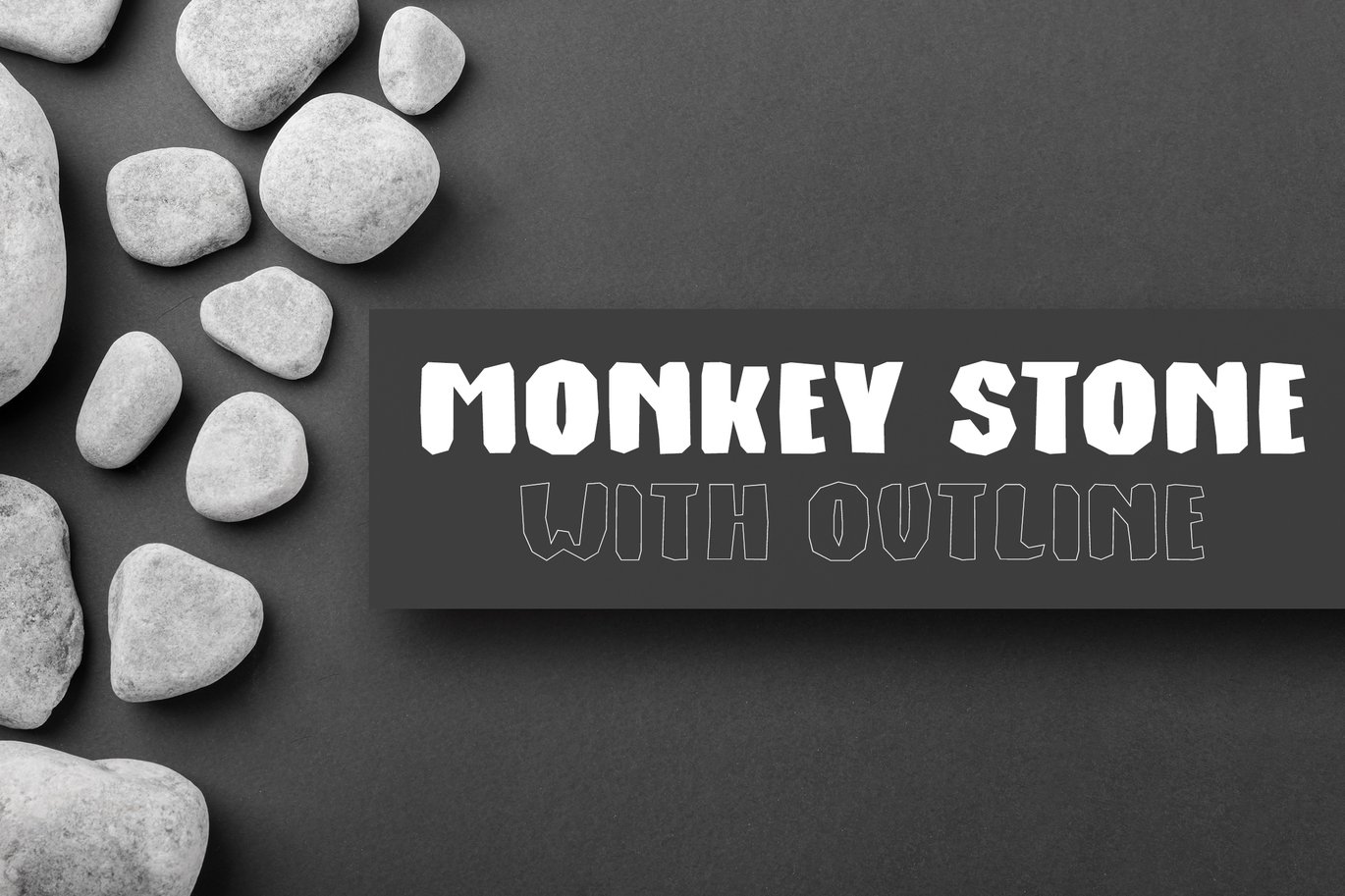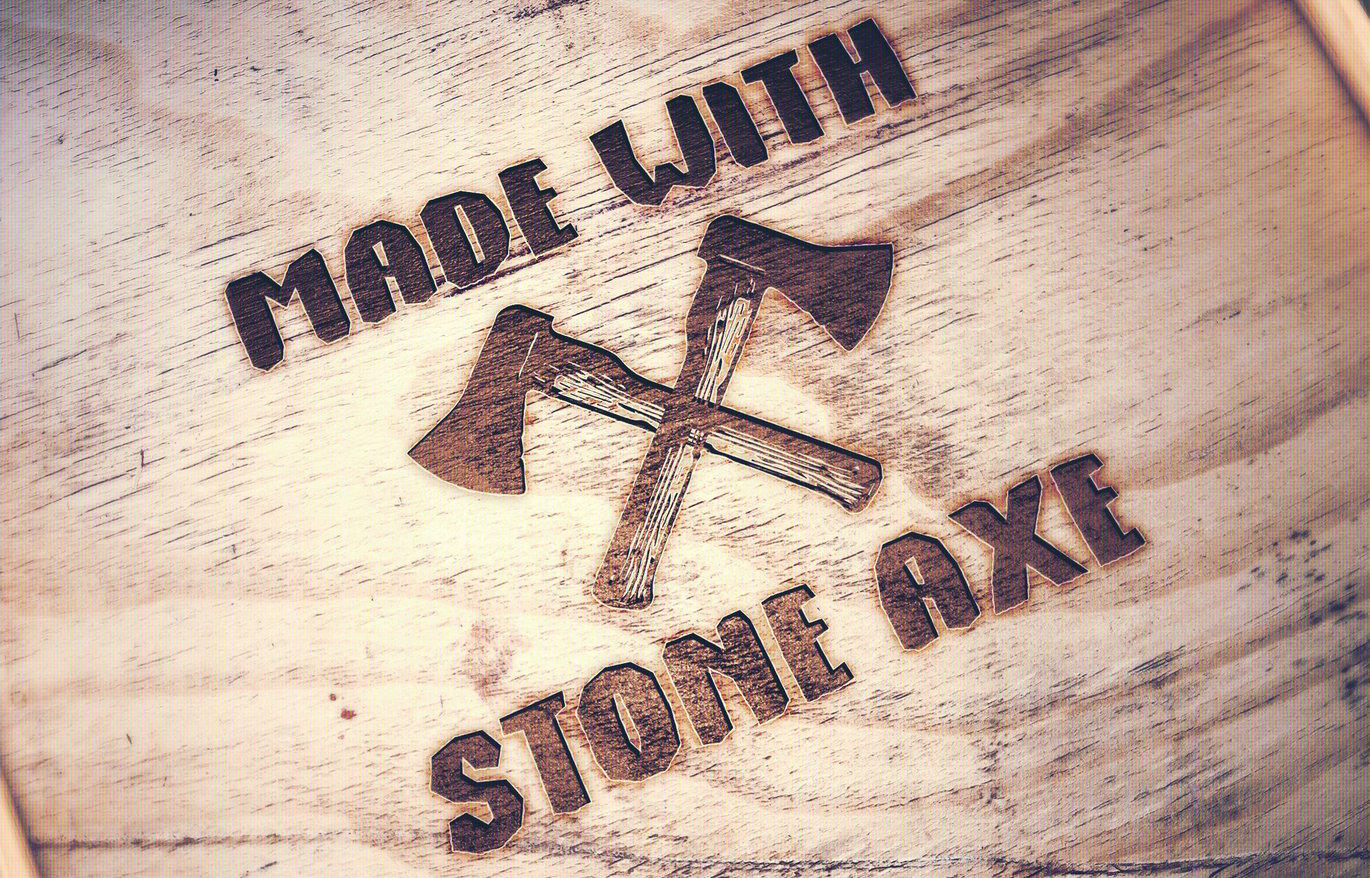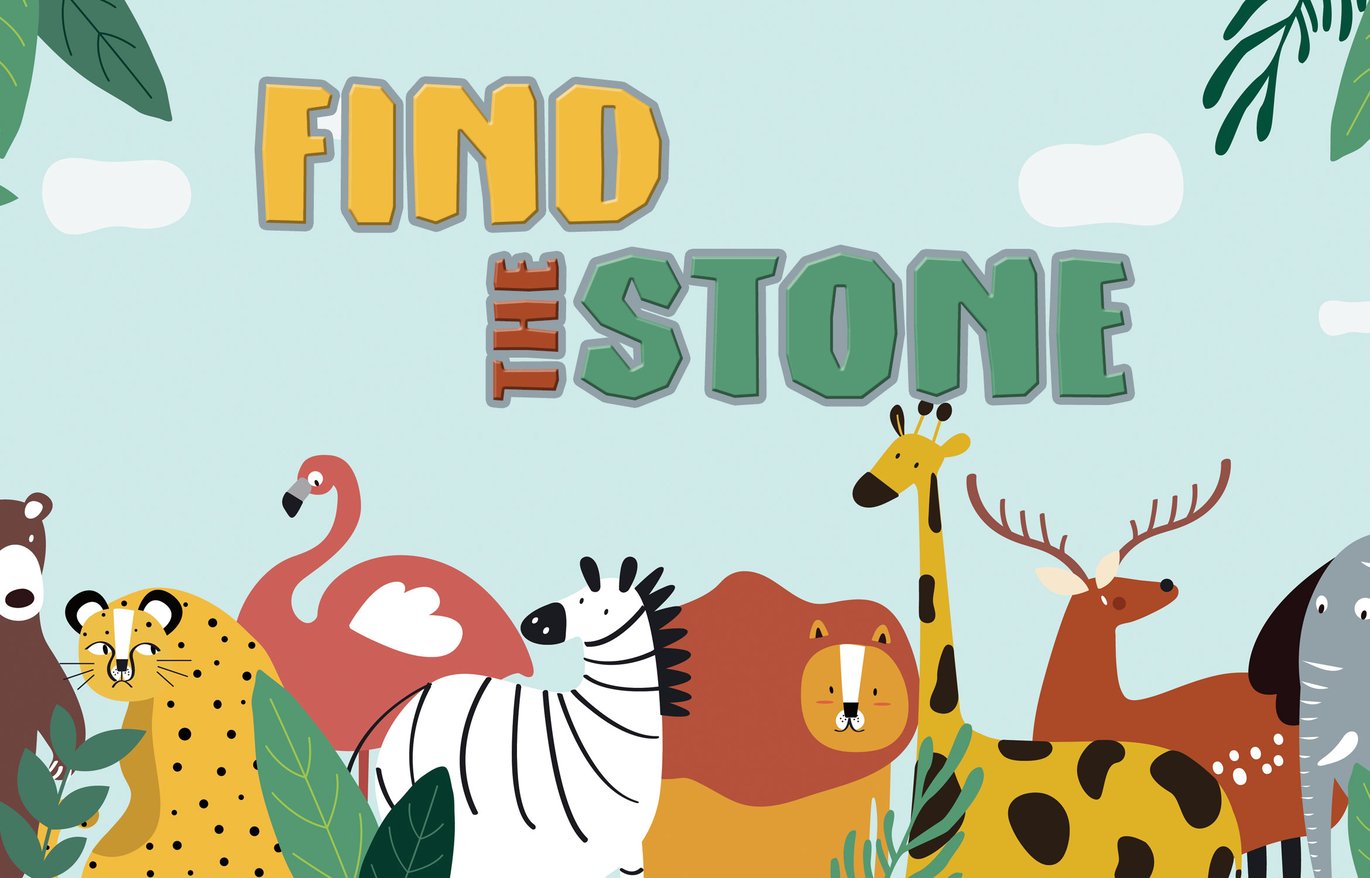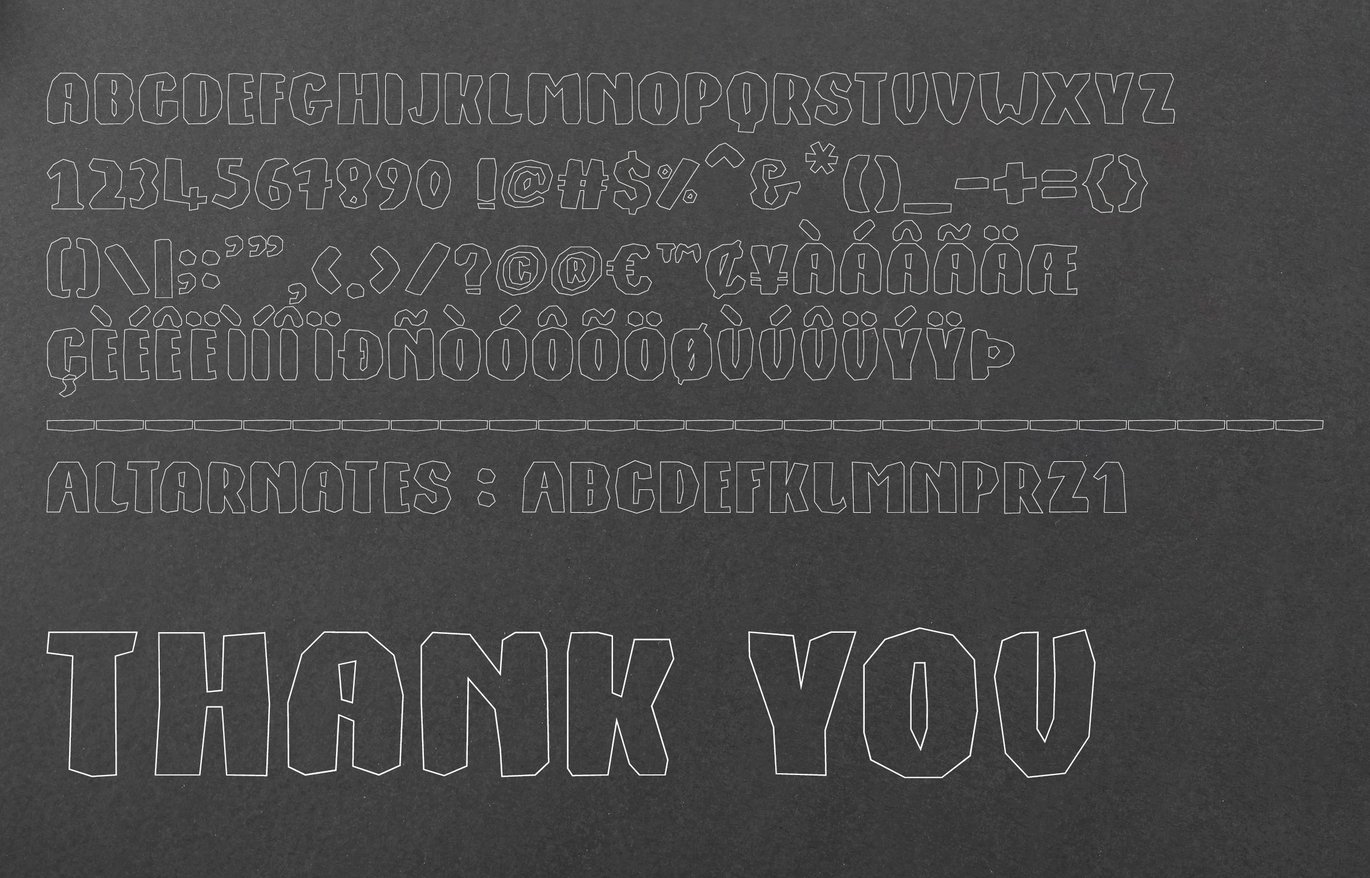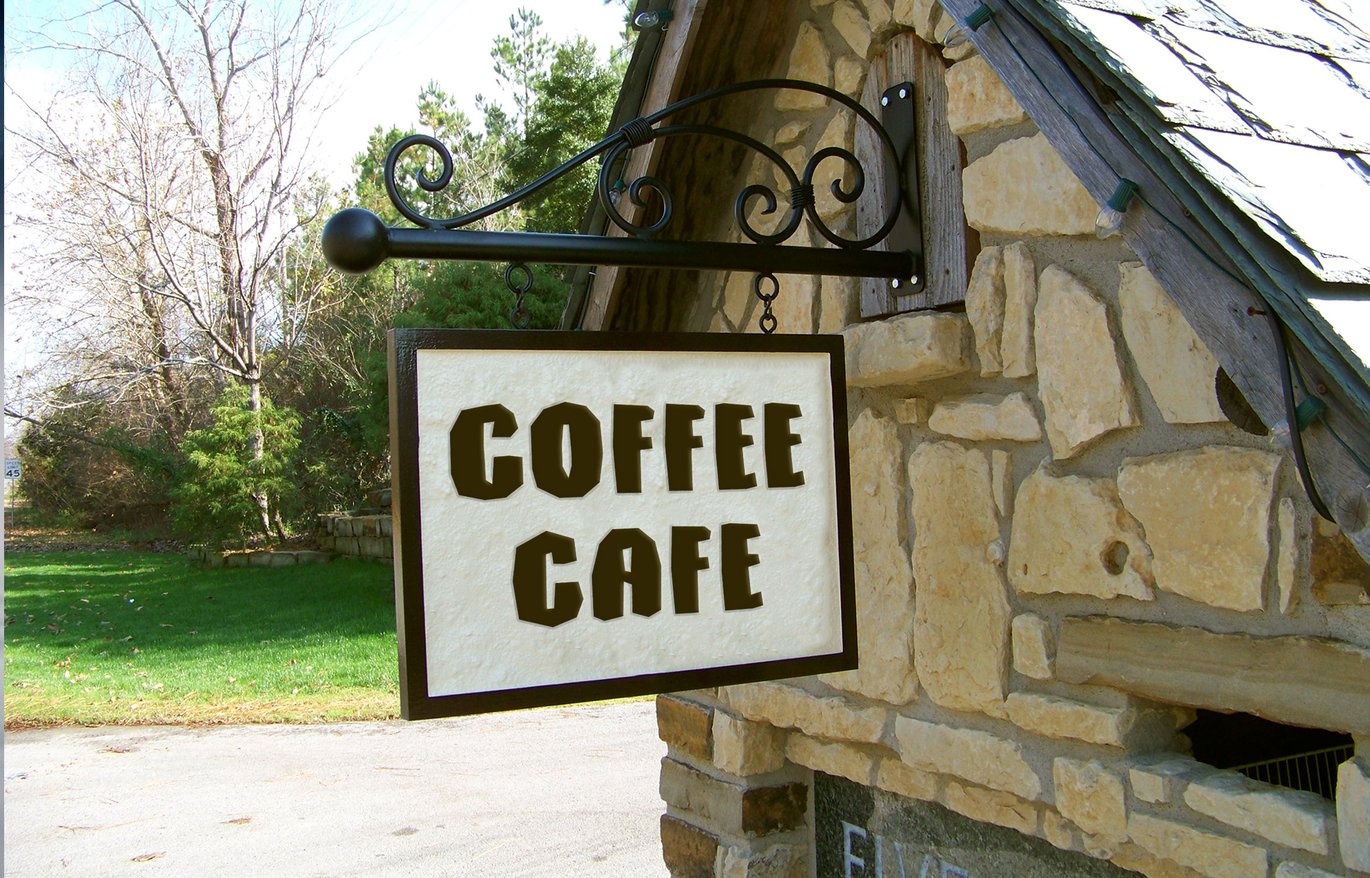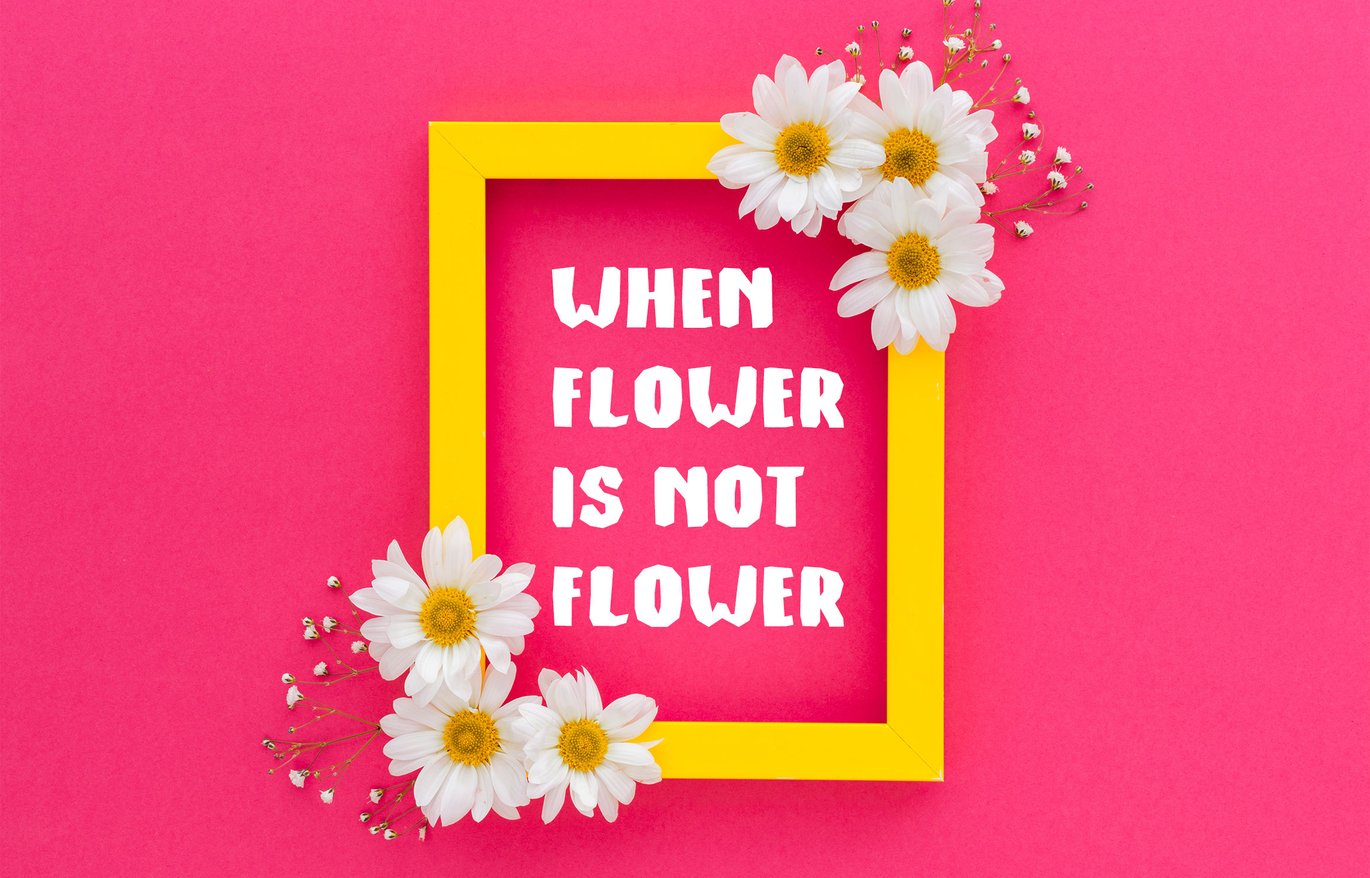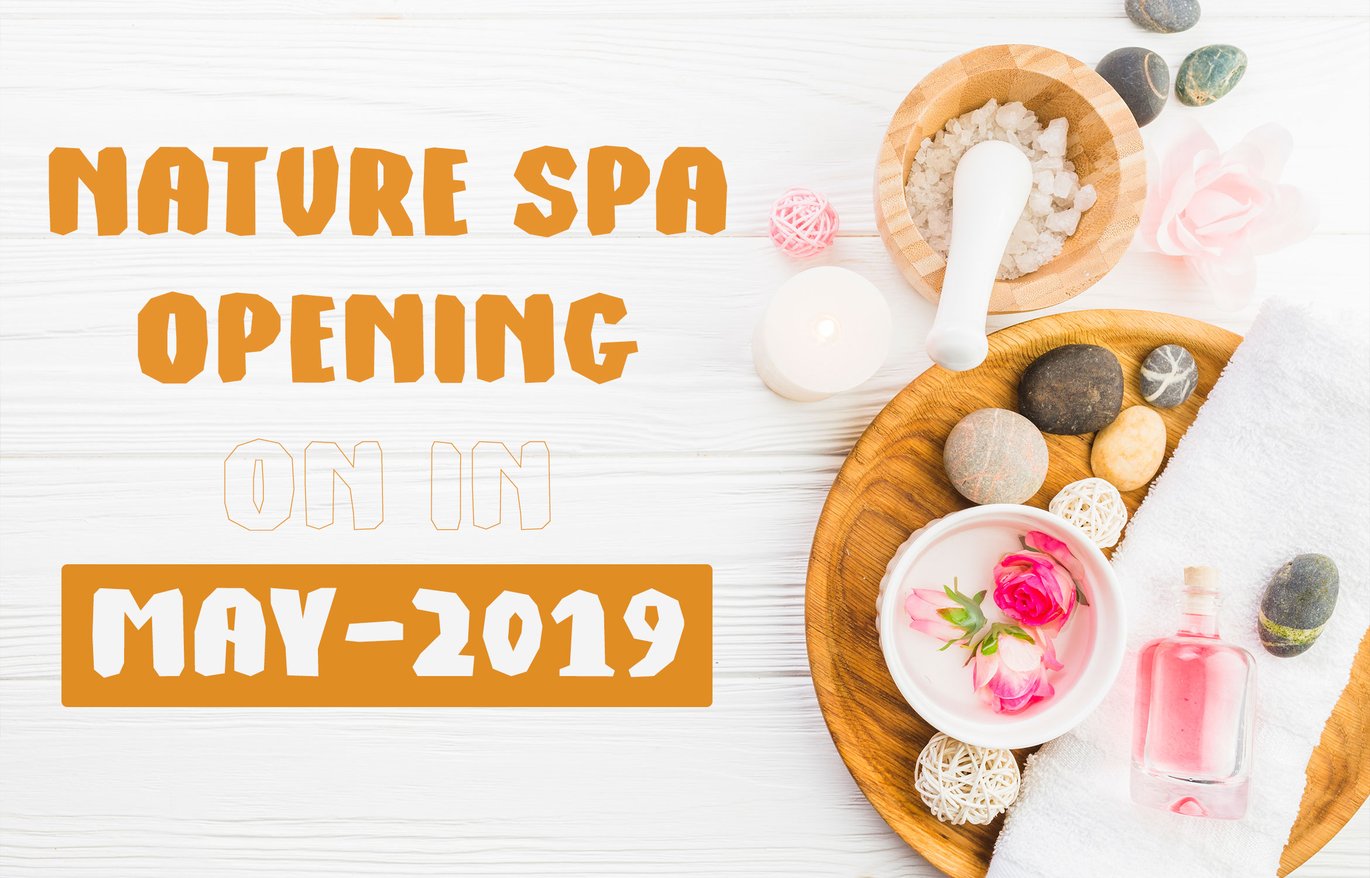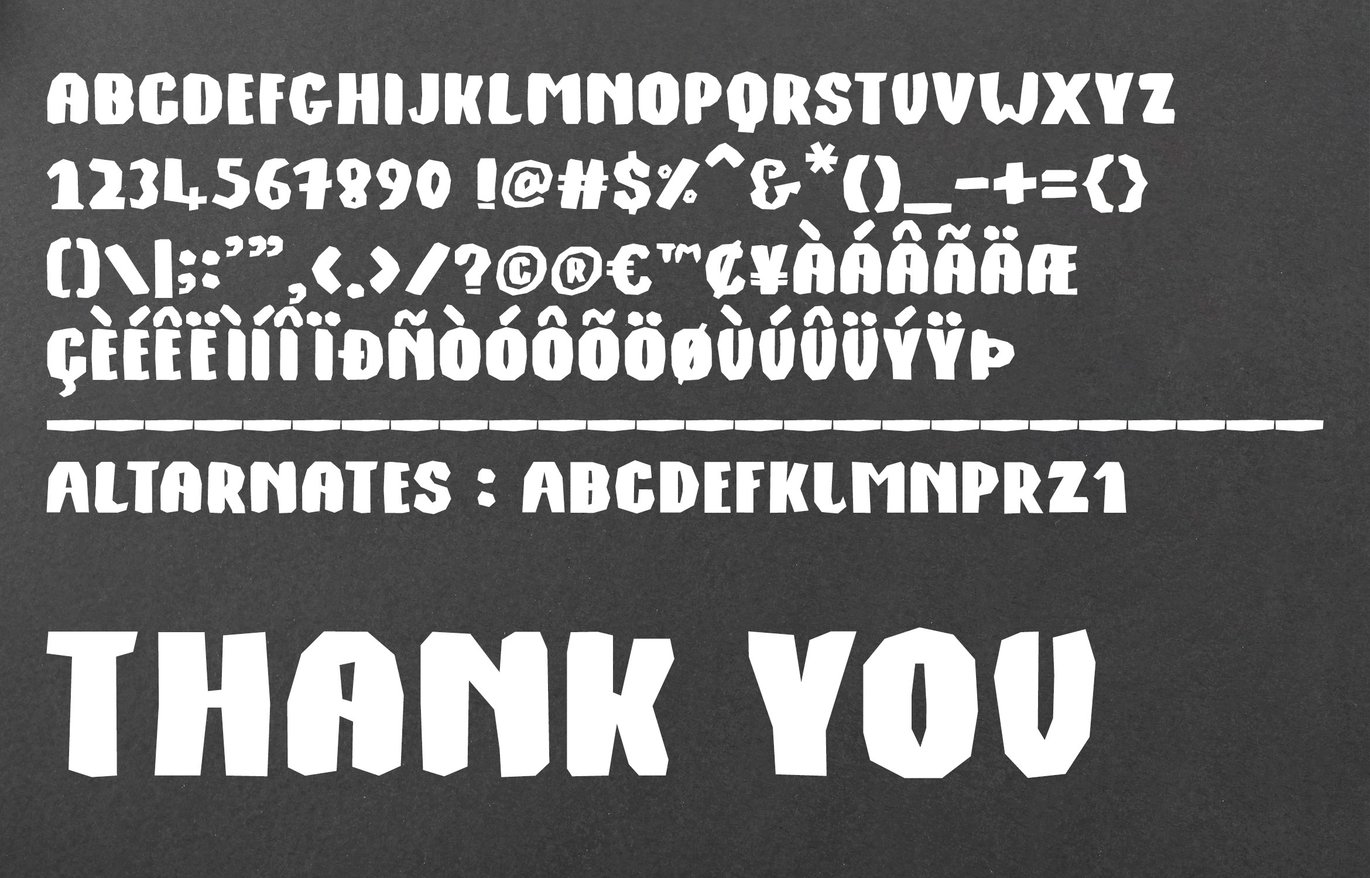
Monkey Stone – Display Font
Introducing You The Monkey Stones, Brand new all caps font with the old age stones effect, It will be perfect choice or nature lovers and organic related usage, Completely a multipurpose font.